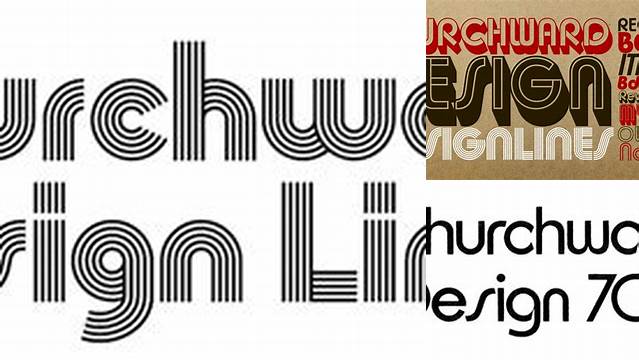
Hey design enthusiasts! Ever stumbled upon a font that just clicks? A font that makes your project pop and feel instantly more professional? Well, today we're diving deep into the awesome world of the Churchward Design Lines font and, more importantly, how you can snag it for a free download. This isn't just about pretty lettering, guys; it's about finding those design tools that elevate your work without breaking the bank. So, let's get into it!
Understanding the Allure of Churchward Design Lines Font
The Churchward Design Lines font is a pretty special character in the typography world. It’s known for its distinctive, clean, and somewhat quirky aesthetic. Think of it as a font that balances a classic feel with a modern edge. It’s not overly ornate, but it’s far from boring. The magic lies in its subtle details – the way the lines are drawn, the slight variations in stroke weight, and the overall personality it exudes. This font is fantastic for grabbing attention while maintaining readability. It works wonders for branding, especially for companies looking for a unique yet approachable voice. Imagine using it for a boutique coffee shop, a handcrafted goods store, or even a cool tech startup. It adds a layer of sophistication without feeling stuffy. The versatility is a huge plus, too. Whether you’re designing a logo, a website header, a social media graphic, or even a print ad, the Churchward Design Lines font has the potential to make a real impact. It’s the kind of font that designers talk about because it’s memorable and versatile. It can convey a sense of craftsmanship, innovation, or even a playful spirit, depending on how you pair it with other elements. The designer, often associated with Churchward’s distinct style, has a knack for creating typefaces that are both functional and aesthetically pleasing. This font embodies that philosophy, offering a balance that’s hard to find. It’s the kind of font that makes you stop and say, "Wow, what is that font?" and that’s always a good sign for a designer looking to stand out. So, before we even get to the download part, it's crucial to appreciate why this particular typeface is so sought after. Its unique character set, the thoughtful spacing, and the overall harmonious design make it a go-to for many creatives.
Utilizing Churchward Design Lines in Your Design Projects
Now for the fun part, guys – actually using the Churchward Design Lines font free download in your projects! This font's unique character makes it suitable for a variety of applications. For branding, it's a stellar choice for logos. Its clean lines and distinct personality can help a brand stand out and be easily recognizable. Think about pairing it with a simple, modern icon or a complementary sans-serif font for body text to ensure readability. When designing websites, use it for headings, subheadings, or even call-to-action buttons to add a touch of flair. Just be mindful of its impact; too much of a distinctive font can be overwhelming. For social media graphics, the Churchward Design Lines font can make your posts eye-catching. Imagine using it for quotes, event announcements, or promotional banners. It grabs attention quickly in a crowded feed. Print materials, like posters, flyers, or business cards, also benefit greatly from this font. It can add a professional yet creative touch that makes your physical collateral memorable. For example, on a business card, it could be used for the name and title, while a simpler font handles the contact details. When incorporating the Churchward Design Lines font, consider its context. Its slightly quirky nature might be perfect for creative industries, lifestyle brands, or anything aiming for a friendly, approachable vibe. However, for highly formal or corporate communications, you might want to pair it strategically or opt for a more traditional typeface. Play around with different weights if available, and experiment with letter spacing (kerning) to achieve the perfect look. The key is to let the font shine without overpowering the message. Its distinctiveness is its strength, so use it where you want to make a statement.
Alternatives and Similar Fonts to Churchward Design Lines
While the Churchward Design Lines font free download is fantastic, sometimes you might be looking for something very similar, or perhaps the exact license you need isn't available. No worries, guys, there are tons of other fonts out there that share a similar vibe! If you love the clean, slightly quirky, hand-drawn feel of Churchward Design Lines, you might want to explore other fonts with a similar aesthetic. Look for sans-serif fonts that have a bit of personality – maybe with subtly rounded corners, unique character shapes, or a slightly irregular baseline. Fonts that are often described as "modern rustic," "hand-lettered sans-serif," or "quirky geometric" might fall into this category. You can often find great alternatives on platforms like Google Fonts, Font Squirrel, or DaFont. For example, check out fonts that have a slightly condensed or extended feel, or those with interesting terminals (the ends of strokes). Sometimes, a font that looks completely different at first glance can achieve a similar effect through its weight and spacing. If you're specifically looking for a free alternative, searching for terms like "free hand-drawn sans-serif font" or "quirky display font free" can yield great results. Remember to always check the licenses for these alternatives too! Some might be free for personal use only, while others offer broader free licenses. Exploring similar fonts is a great way to expand your typographic toolkit and have backup options. It also helps you understand the nuances that make a font like Churchward Design Lines so special. By comparing and contrasting, you gain a better appreciation for typography and how different styles can evoke distinct emotions and messages in your designs. So, even if the exact Churchward Design Lines font free download isn't the perfect fit for every single project, the quest for similar styles can lead you to discover new typographic gems.
Enhancing Your Designs with Unique Typography
Ultimately, the goal behind seeking out fonts like the Churchward Design Lines font free download is to make your designs more unique and impactful. Typography is a powerful element; it's not just about making words readable, but also about conveying a specific mood, brand identity, and aesthetic. Using distinctive fonts allows you to break away from the generic and create something truly memorable. When you choose a font with personality, like Churchward Design Lines, you're adding another layer of storytelling to your work. It can communicate creativity, approachability, or a modern sensibility. Think about it: a project using Times New Roman feels vastly different from one using a bold, quirky font. The Churchward Design Lines font offers that special something that can elevate a simple graphic into a piece of art. It helps your work stand out in a sea of sameness. In the digital age, where attention spans are short, a unique typographic choice can be the hook that draws people in. It signals attention to detail and a commitment to quality. Furthermore, experimenting with different fonts encourages creative growth. It pushes you to think outside the box and explore new visual territories. A Churchward Design Lines font free download provides an accessible way to do just that. It empowers you to play with different styles, test their effectiveness, and build a stronger visual language for yourself or your brand. Don't underestimate the power of a well-chosen font; it can be the deciding factor in whether your message resonates with your audience. So, embrace the search for unique typography, and use tools like this amazing font to make your creative endeavors truly shine.
Conclusion: Embrace the Power of Typography
So there you have it, guys! We've journeyed through the exciting landscape of the Churchward Design Lines font free download, exploring its appeal, where to find it, how to use it, and so much more. Remember, typography is more than just text; it's a powerful design tool that can shape perceptions, convey emotions, and define brands. Whether you're downloading a free gem like Churchward Design Lines or investing in a premium typeface, the key is thoughtful selection and strategic application. Use distinctive fonts like this to make your projects memorable, pair them wisely with supporting typefaces for maximum impact, and always, always be mindful of licensing. The world of fonts is vast and constantly evolving, offering endless possibilities for creative expression. So go forth, experiment, keep learning, and embrace the incredible power of typography to elevate your designs. Happy designing!